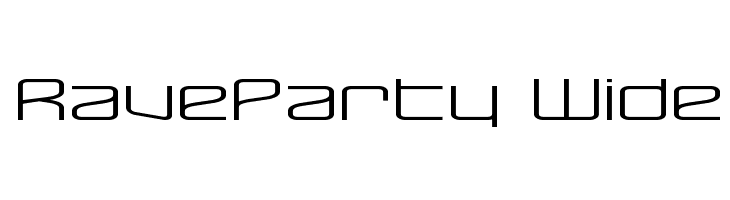
A modern, geometric font with uniform line thickness and rounded edges.
A sleek, geometric font with a modern, minimalist design.
A modern, geometric font with a futuristic and sleek design.